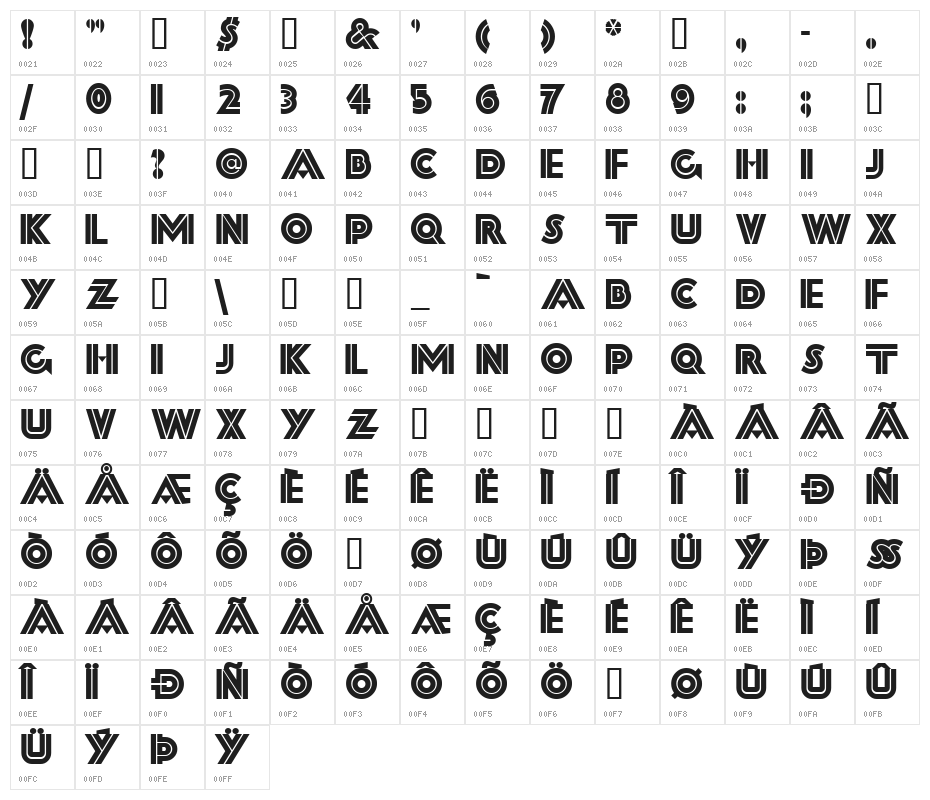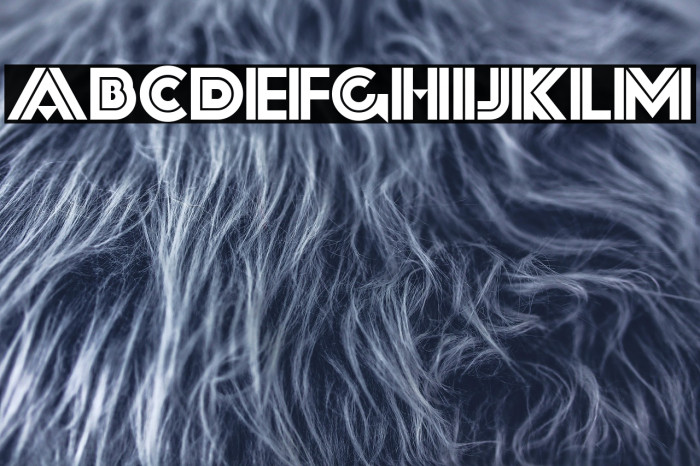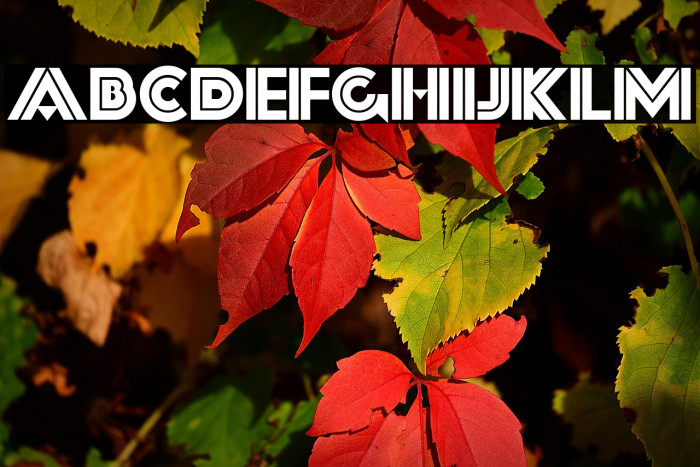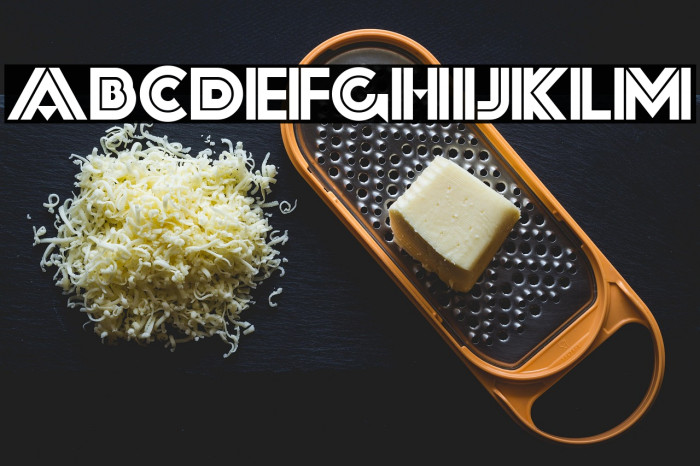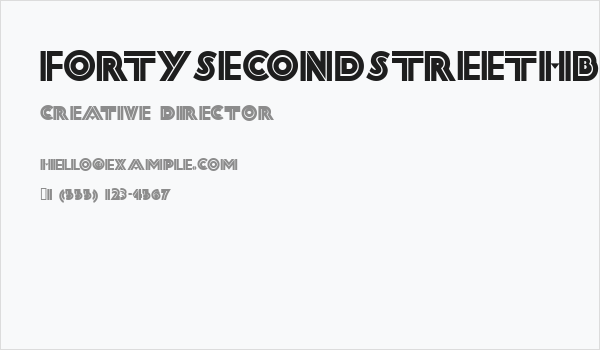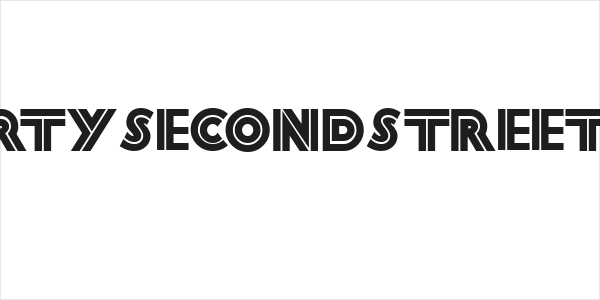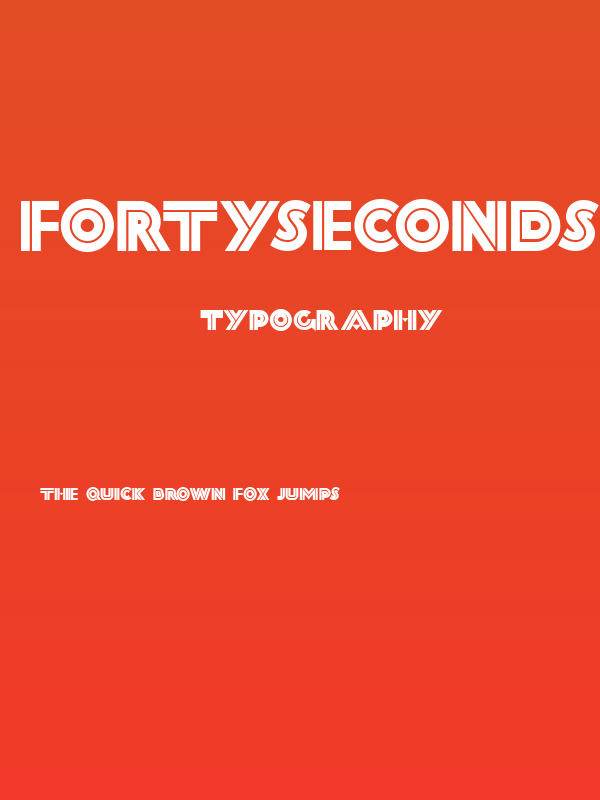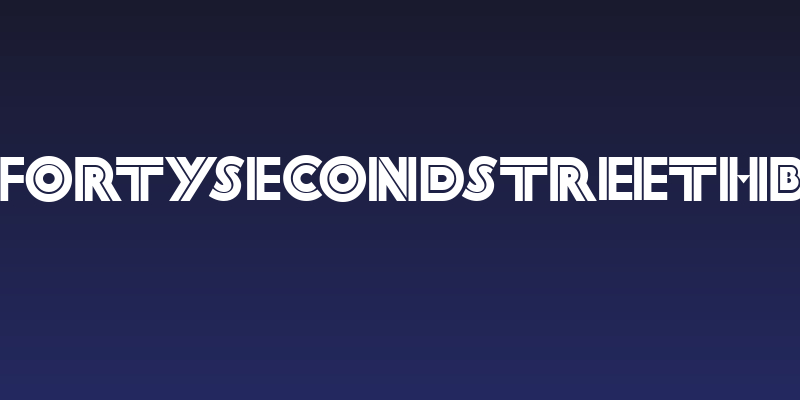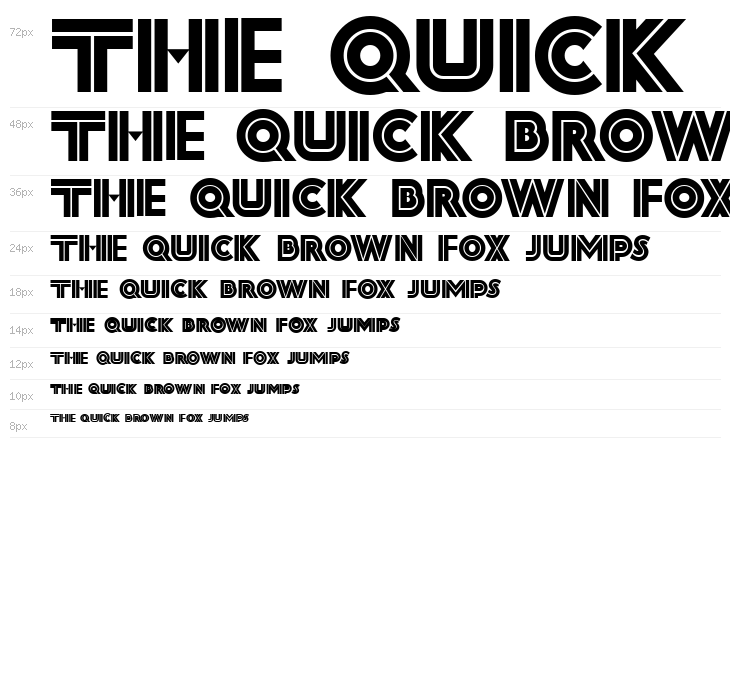
FortySecondStreetHB Font
FortySecondStreetHB Description
This font features a bold, geometric design with strong, angular lines and a distinct Art Deco influence. The characters are constructed with a combination of thick and thin strokes, creating a high contrast that enhances its visual impact. The uppercase letters have a striking presence, with sharp edges and a sense of movement, while the lowercase letters maintain a consistent style. Numbers and special characters are equally bold and stylized, making them stand out. This font is ideal for projects that require a vintage or retro aesthetic, capturing the essence of early 20th-century design.
| Proposed Projects | Ideal for posters, branding, logos, and any design requiring a vintage or retro aesthetic. |